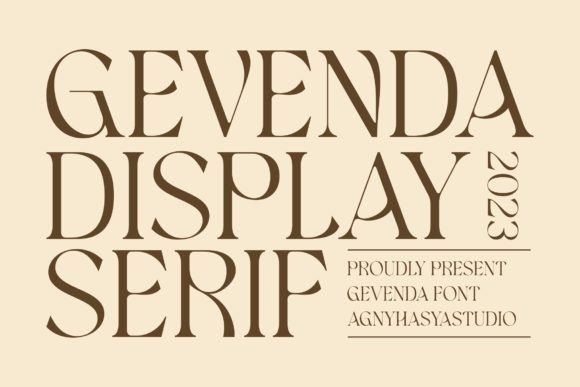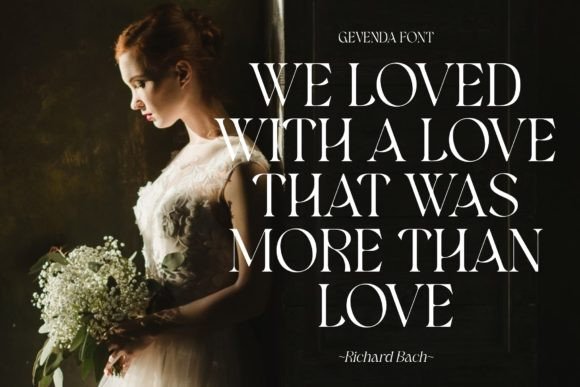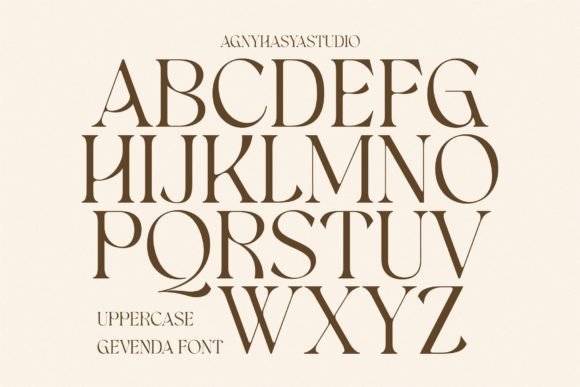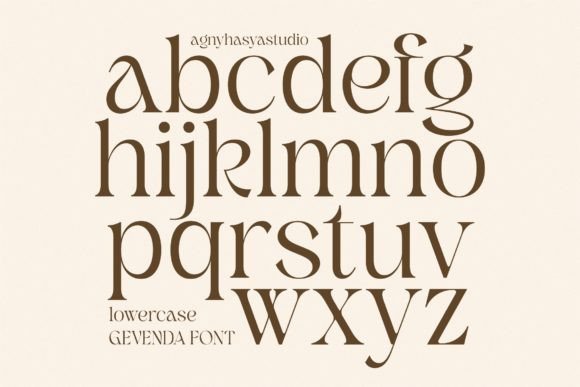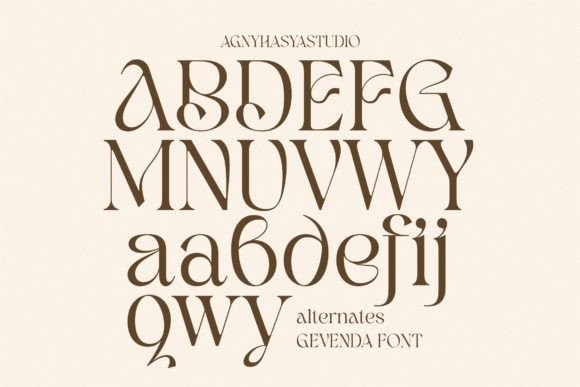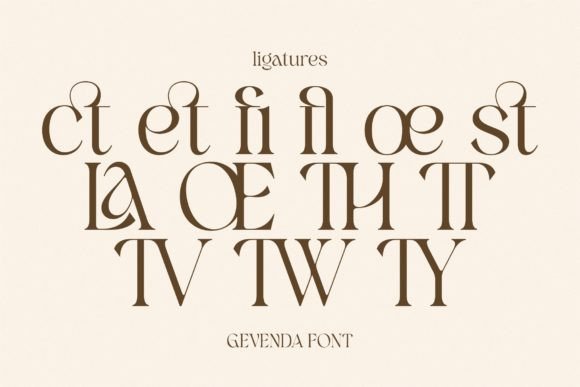
Gevenda Font: Elevate Your Designs with Elegance and Versatility
Are you searching for a font that exudes luxury, elegance, and sophistication? Look no further than Gevenda, a modern classic display serif font that’s perfect for designers and crafters seeking to elevate their projects. In this article, we’ll delve into the features and benefits of Gevenda, and explore how it can be used to create stunning designs.
Introducing Gevenda: A Modern Classic Display Serif Font
Gevenda is a beautifully crafted display serif font that’s designed to make a statement. With its sleek and refined lines, it’s perfect for creating luxurious and elegant designs that demand attention. The font comes in two styles: regular and italic, providing you with flexibility and versatility in your designs.
Key Features of Gevenda Font
- Modern Classic Design: Gevenda boasts a timeless design that’s both modern and classic, making it suitable for a wide range of design projects.
- Luxury and Elegant: The font’s sleek lines and refined curves evoke a sense of luxury and sophistication, perfect for high-end designs.
- Versatile: Gevenda can be used for various design projects, including logos, branding, advertising, product designs, stationery, magazine designs, book/cover title designs, photography, art quotes, wedding designs, fashion designs, special events, labels, and product packaging.
- PUA Encoded: Gevenda is PUA encoded, making it easy to access all the amazing glyphs and ligatures.
- Glyph Variations: The font features glyph variations like alternates and ligatures, providing you with a range of creative options.
Use Cases for Gevenda Font
Gevenda is an incredibly versatile font that can be used for a wide range of design projects. Here are some examples:
- Logos and Branding: Create a luxurious and memorable logo for your brand with Gevenda.
- Advertising: Use Gevenda to create eye-catching ad campaigns that exude elegance and sophistication.
- Product Designs: Add a touch of luxury to your product designs with Gevenda.
- Stationery: Create elegant and refined stationery, including business cards, letterheads, and envelopes.
- Magazine Designs: Use Gevenda to create stunning magazine designs that showcase your content in style.
- Book/Cover Title Designs: Create eye-catching book covers and title designs with Gevenda.
- Photography: Use Gevenda to create beautiful art quotes and typography for your photography projects.
- Wedding Designs: Add a touch of elegance to your wedding designs, including invitations, programs, and decor.
- Fashion Designs: Use Gevenda to create stunning fashion designs, including labels, packaging, and marketing materials.
Why Choose Gevenda Font?
So, why choose Gevenda font for your design projects? Here are just a few reasons:
- Unique and Memorable: Gevenda is a unique and memorable font that will help your designs stand out.
- Elegant and Sophisticated: The font’s elegant and sophisticated design makes it perfect for high-end designs.
- Versatile: Gevenda can be used for a wide range of design projects, making it a valuable addition to your font library.
- Easy to Use: The font is PUA encoded, making it easy to access all the glyphs and ligatures.
| Font Name | Gevenda Font |
| Author | agnyhasyastudio |
In conclusion, Gevenda font is a luxurious and elegant display serif font that’s perfect for designers and crafters seeking to elevate their projects. With its modern classic design, versatility, and ease of use, Gevenda is an excellent choice for a wide range of design projects. Whether you’re creating logos, branding, advertising, or product designs, Gevenda is sure to make a statement.